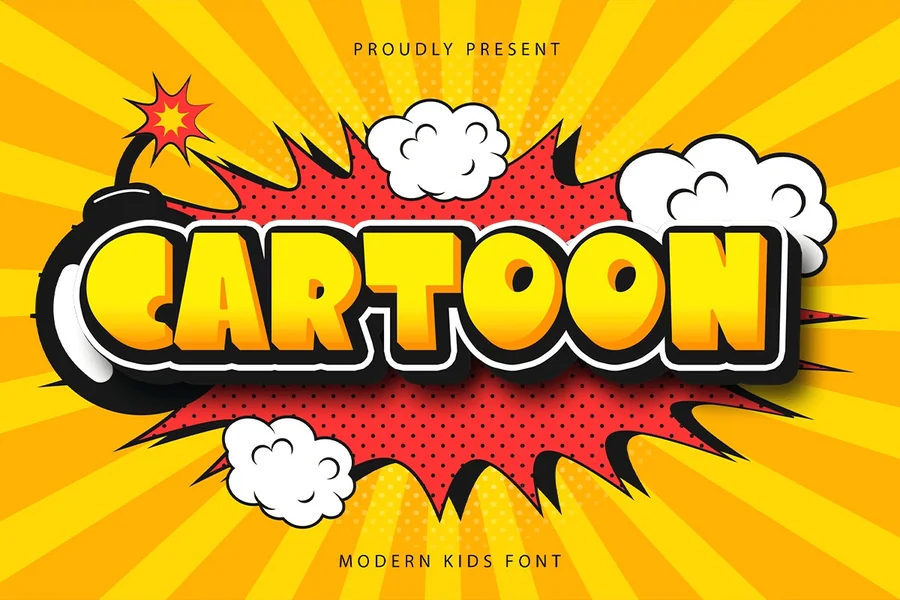
Cartoon Font Styles That Bring Designs to Life
Cartoon font styles are known to make the ordinary text alive and full of personality. Nothing makes you immediately feel fun as when you are looking at rounded letters, exaggerated curves, or bold lines. Such is the strength of the playful typography. It appeals to emotions, creates nostalgia, and attracts the attention without making too much effort.
Starting with books on the subject of children and extending to the YouTube thumbnails, this kind of lettering is a trend among designers who wish to make their message seem friendly and lively. However, it is not merely about bubbly letters. The correct choice of style, the correct colors to combine with that style, the correct context used to showcase that design, can make a great difference in the reception of your design.
Where can this style of typography be used effectively, how to make it work without overworking it and what makes this typography style so special are the one questions that we will explore in this guide.
What Is a Cartoon Font?
A cartoon font is an artistic font that is based on comic books, cartoons and illustrated narration. It is typically characterized by vigorous lines, curvy lines, lighthearted proportions, and occasionally disproportionate letterforms which resemble handwriting.
These fonts are not designed with readability rules because they are aimed at the expression, unlike formal fonts applied in business documents. Letters can be returned lightly when bouncing up and down the baseline. Certain styles involve heavy outlines, shadows or 3D effects that bring out the text.
Such fonts are popular in designs which are intended to be friendly and easy-going. Consider the invitations to parties of children, animated cartoon movie posters, comic strips or the packages of toys. The idea is to form an atmosphere that should be active and fantastical.
Not every playful font is however identical. Others are smooth and plump, and ideal to the content of a kid. Others are daring and comic based and would be more at home in action or game graphics.
Why Cartoon Font Styles Are So Popular
The appeal of cartoon-based typography is the result of its emotional appeal. It feels warm and welcoming. It is what people relate to childhood memories, fun experiences, and animated films.
Visibility is another reason why it is appealing. These fonts can be viewed as being thick and bold thus being easily readable at a distance. This is why they are an ideal option to use as posters, thumbnails, banners, and social media graphical images.
They are also conspicuous in densely populated digital space. It is easy to notice when going through a feed of clean and minimal designs that one bold playful headline stands out. It feels different. It feels alive.
Brands that attract young people tend to use such fonts to create the impression of friendliness. They are occasionally used in small-scale types of campaigns by even businesses that are not in the kids market as a way of trying to instill a sense of fun into their message.
Still, balance is important. Excessive exaggerated typography can make the design to seem cluttered. The trick is to understand when it is better to make the font flashy and when one should keep it plain.
Popular Styles of Cartoon-Inspired Typography
It does not have a single appearance that characterizes this group. Rather, it entails a number of different styles with their personalities.
The comic book appearance is one of the usual styles. These fonts are highly characterized by bold capital letters with deep outlines and tempestuous figures. Action themes, gaming content, and superhero-inspired graphics are some of the themes that they work well with.
The other style is the bubble letter look. Sharp edges and smooth curves form an easy and welcoming touch. This style is commonly employed in the events of children, school work, and fun branding.
This also includes hand-drawn fonts. They copy brush or marker strokes and feel individual and inventive. These can be craft brands, DIY channels and art projects.
It also has 3D and shadowed versions. These fonts also apply overlay effect to give depth and dimension. They are usually perceived in cartooned titles and advertisements.
The selection of the appropriate variation will be dependent on what you are saying. The design of a bedtime story could not be a well-known and calm one with a bold comic style. Similarly, a low-energy theme of sport might not look good in a soft rounded typeface.
How to Use Cartoon Font in Design
A cartoon font cannot be used without a careful consideration. Although it seems to be playful, it still requires order and stability.
Begin with restricting using it to headlines or short phrases. These are fonts meant to raise eyebrows. Long paragraphs that involve them may slow the reading speed and put the viewer off.
Combine them with easy-going supporting fonts. A clean, non-serif font usually is suitable to body text. This contrast serves to keep it clear and at the same time make the design fun.
Color choice also matters. The typography is playful and is frequently enhanced by bright colors. To enhance visibility, it may be better to add an outline or shadow, particularly to busier backgrounds.
Another factor of significance is spacing. Lighthearted letterforms would require additional space to breathe. Spacing between letters and line height can also be changed to avoid cramped look of the design.
Think about context too. A cartoonish heading may suit well where it is a birthday invitation but would not suit well in the annual reports of a company. Always put in mind the audience and the reason of your design.
Tips for Choosing the Right Style
With a font, make sure you establish a desired tone before choosing it. Is it an energetic and noisey project? Or soft and cheerful? You should have selected the mood.
Readability of tests of various sizes. There are decorative typefaces that are ideal to use in huge headings but not scaled down. Ensure that your design is not opaque on platforms and formats.
One should not use so many decorative fonts in a single project. The combination of several playful styles can bring chaos to the image. Use a single impressive font and backup it using the basic typography.
Check licensing as well. There are numerous ornamental fonts that are available free of charge when used personally, but when utilized in commercial deals, a license fee must be paid. Always check usage terms, and make up your design.
Finally, trust your eye. In case something is too busy or distracting, make it simpler. Your message should be done well with playfulness, not against it.
Final Thought
The cartoon font styles add vigor, attractiveness, and character to design. They manage to make simple words emotive images that are able to reach human feelings. They can make a project memorable and interesting when applied in a wise way.
The secret lies in balance. Select a style that suits your message. Combine it with white space typography. Give it space to shine. Playful lettering can make a simple idea look alive and vivid when it is done right.
FAQs
What is a cartoon font used for?
A cartoon font is commonly used for children’s materials, comic designs, posters, social media graphics, gaming content, and playful branding projects. It helps create a fun and energetic visual tone.
Can cartoon fonts be used for professional projects?
Yes, they can be used in professional projects if the brand identity supports a playful and creative style. They are often suitable for entertainment, education, and youth-focused businesses.
Are cartoon-style fonts good for long paragraphs?
They are usually not ideal for long paragraphs because decorative letterforms can reduce readability. It is better to use them for headlines or short phrases.
How do I pair a cartoon font with other fonts?
You can pair it with a simple sans-serif or clean typeface for body text. This creates contrast and keeps the overall design balanced and easy to read.
Do cartoon fonts work well on social media?
Yes, they work very well on social media because bold and playful lettering stands out in busy feeds and quickly captures attention.